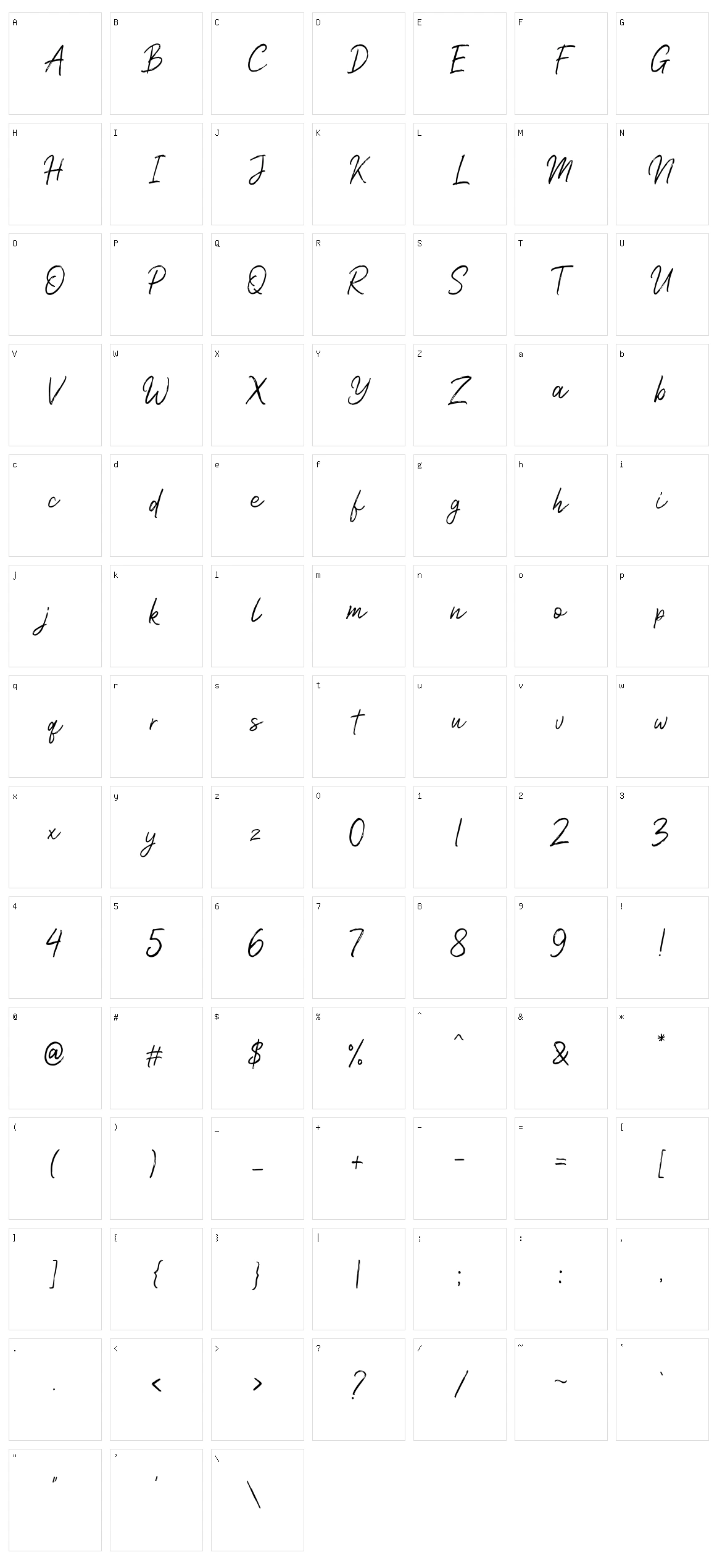
The free font Nicollast is carefully designed by Weape Studio, showcasing a thoughtful balance of creativity and usability and falls under the Script font style. When you download the ZIP file, it contains only 32.47 KB of font files, making it lightweight and quick to download. Please review the license details below to understand permitted usage and distribution rights. If license information is not available, we recommend using this font for personal projects only or contacting the author directly for commercial usage permissions.
Nicollast Handwritten Brush Font 2018 by Weape Design